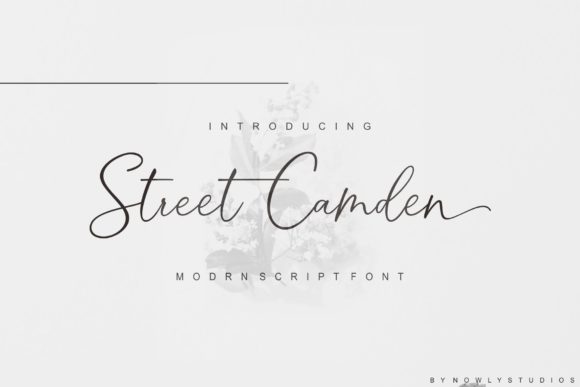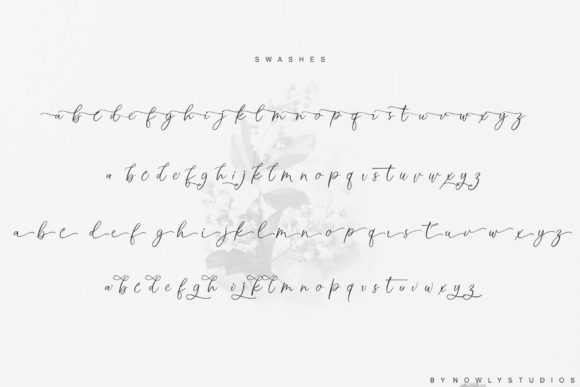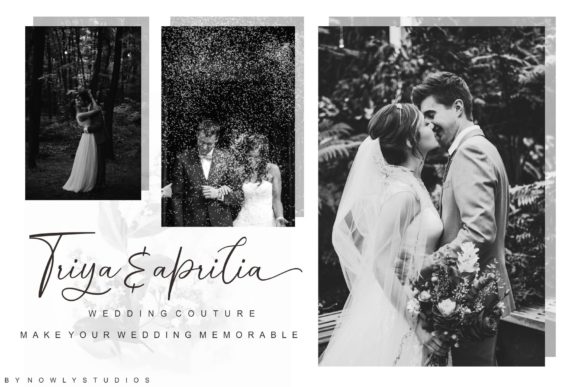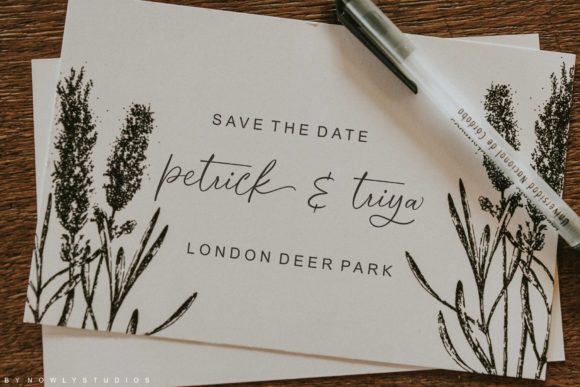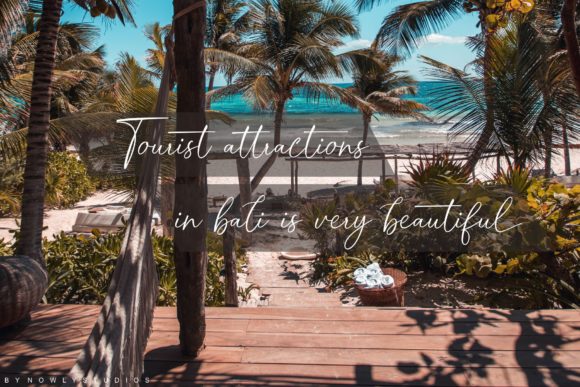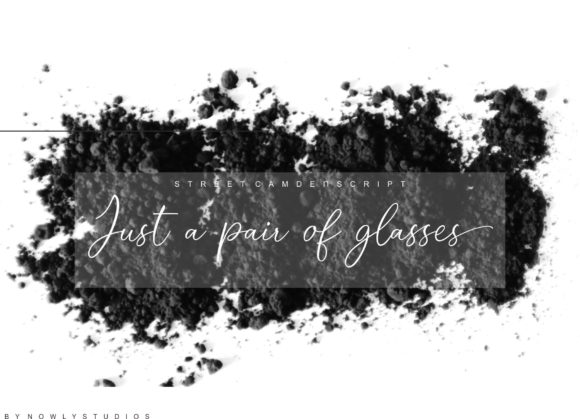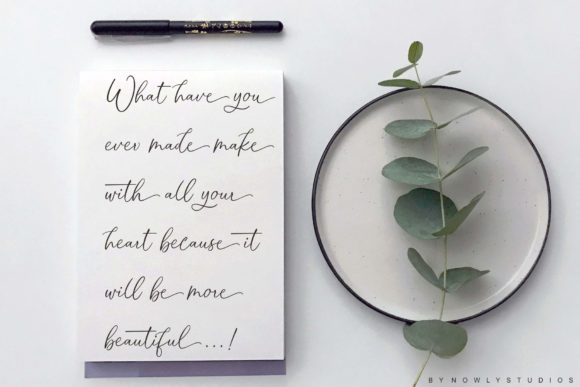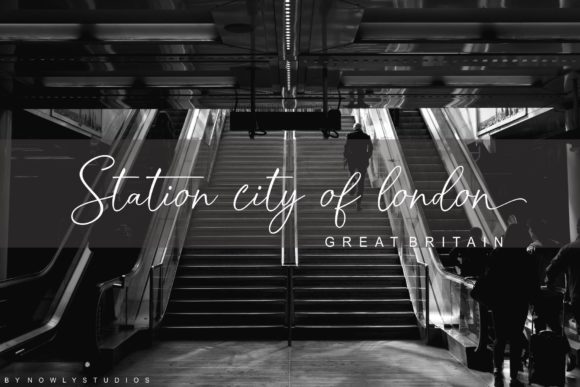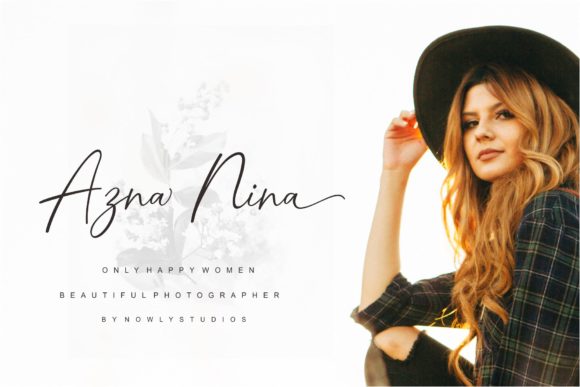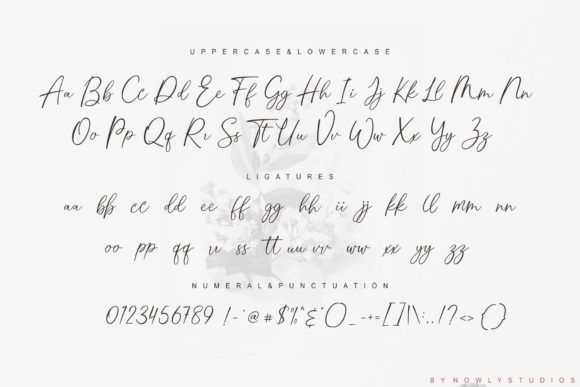
HomeScript FontsStreet Camden Font Script Fonts Street Camden Font FacebookXPinterestWhatsApp Street Camden Font Poster 2 Street Camden Font Poster 3 Street Camden Font Poster 4 Street Camden Font Poster 5 Street Camden Font Poster 6 Street Camden Font Poster 7 Street Camden Font Poster 8 Street Camden Font Poster 9 Street Camden Font Poster 10 About Street Camden Font Street Camden is a beautiful modern script font with a unique style. Get inspired by its flowing curves! DOWNLOAD NOW People also explored Raidera Font Machow Font Jane Austin Font Pride Font Historia Font Aistersix Font Jackson Font Undermoon Font Drink Font 288 0 TagsStreet Camden Font Previous articleDarllinge FontNext articleMybela Font LEAVE A REPLY Cancel reply Comment: Please enter your comment! Name:* Please enter your name here Email:* You have entered an incorrect email address! Please enter your email address here Website: Save my name, email, and website in this browser for the next time I comment. Personal Use Free Rumaniaya Personal Use Free Read more about this font Sunbright Font Personal Use Free Read more about this font Ancient Script Personal Use Free Read more about this font Samureix Personal Use Free Read more about this font BLOG Using Fonts in Digital Marketing: Tips to Strengthen Your Brand Identity In the realm of digital marketing, every visual element plays a crucial role in shaping a brand's identity, and fonts are no exception. The... Free Fonts Risk: Why Free Fonts Can Be Dangerous for Designers Modern Sans-Serif Fonts That Brands Love in 2025 The 10 Best Handwriting Fonts to Add Personality to Your Designs